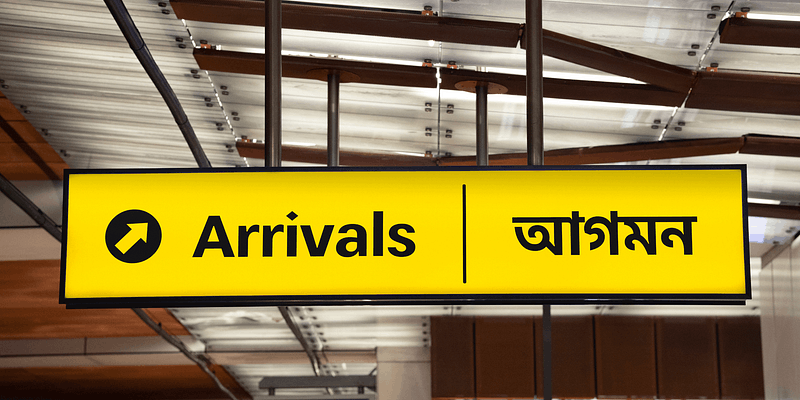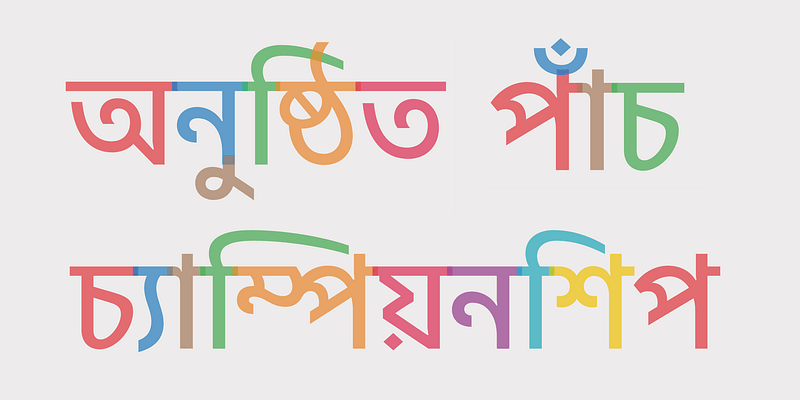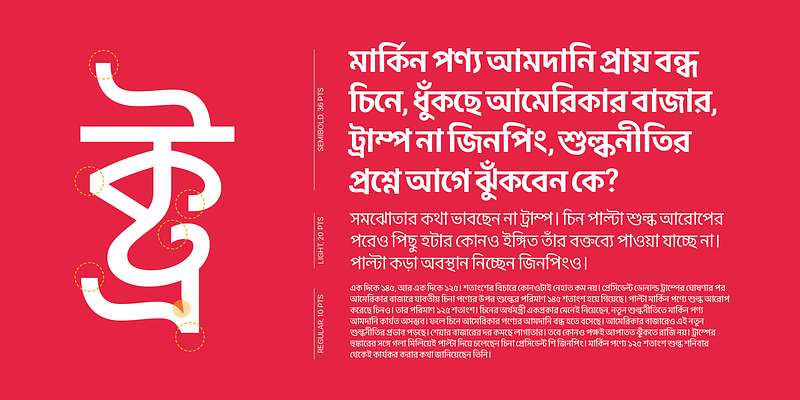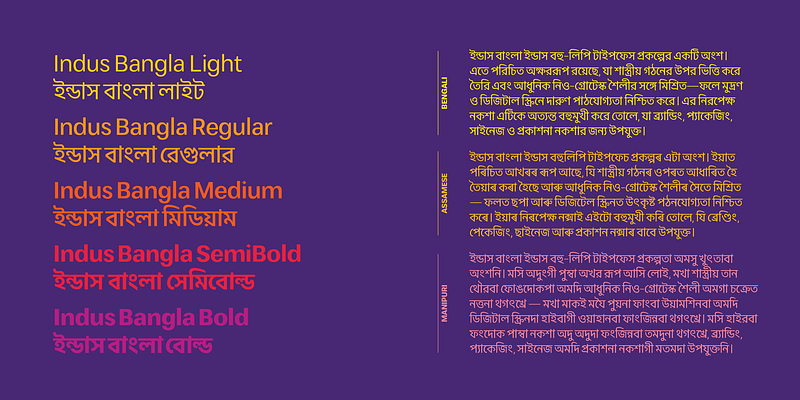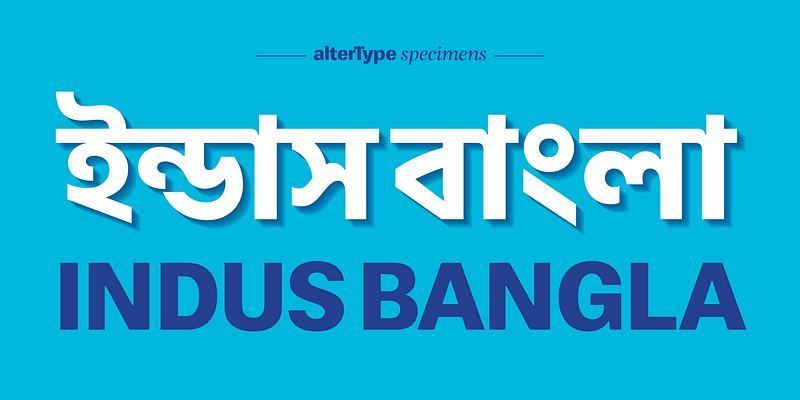
Indus Bangla is a part of the Indus multi-script typeface project, designed to support a wide range of major Indian scripts, including Devanagari, Bangla, Tamil, Gurmukhi, Gujarati, Telugu, Malayalam, and Kannada. Rooted in a neo-grotesque aesthetic, Indus prioritizes simplicity, clarity, and functionality. Its letterforms are grounded in familiar, classical proportions and shapes while embracing a clean, contemporary tone.